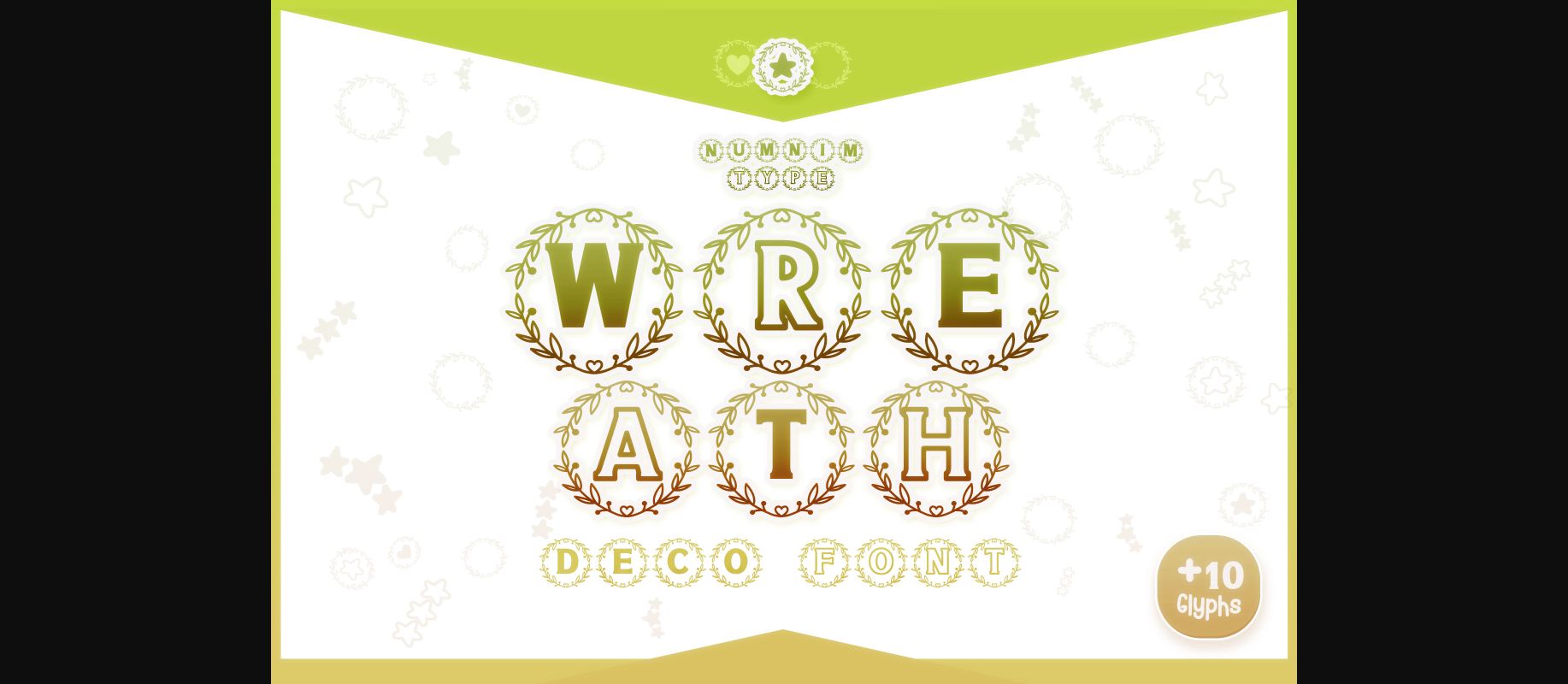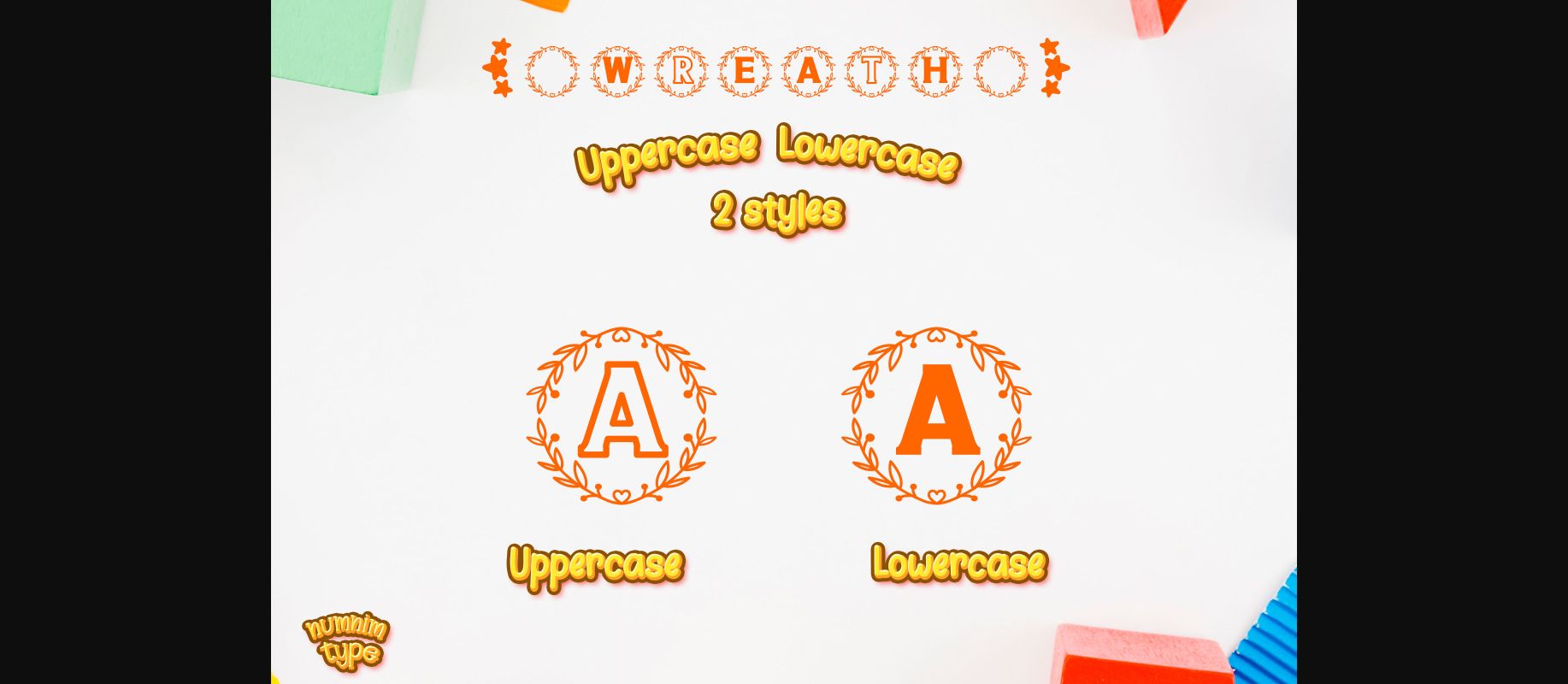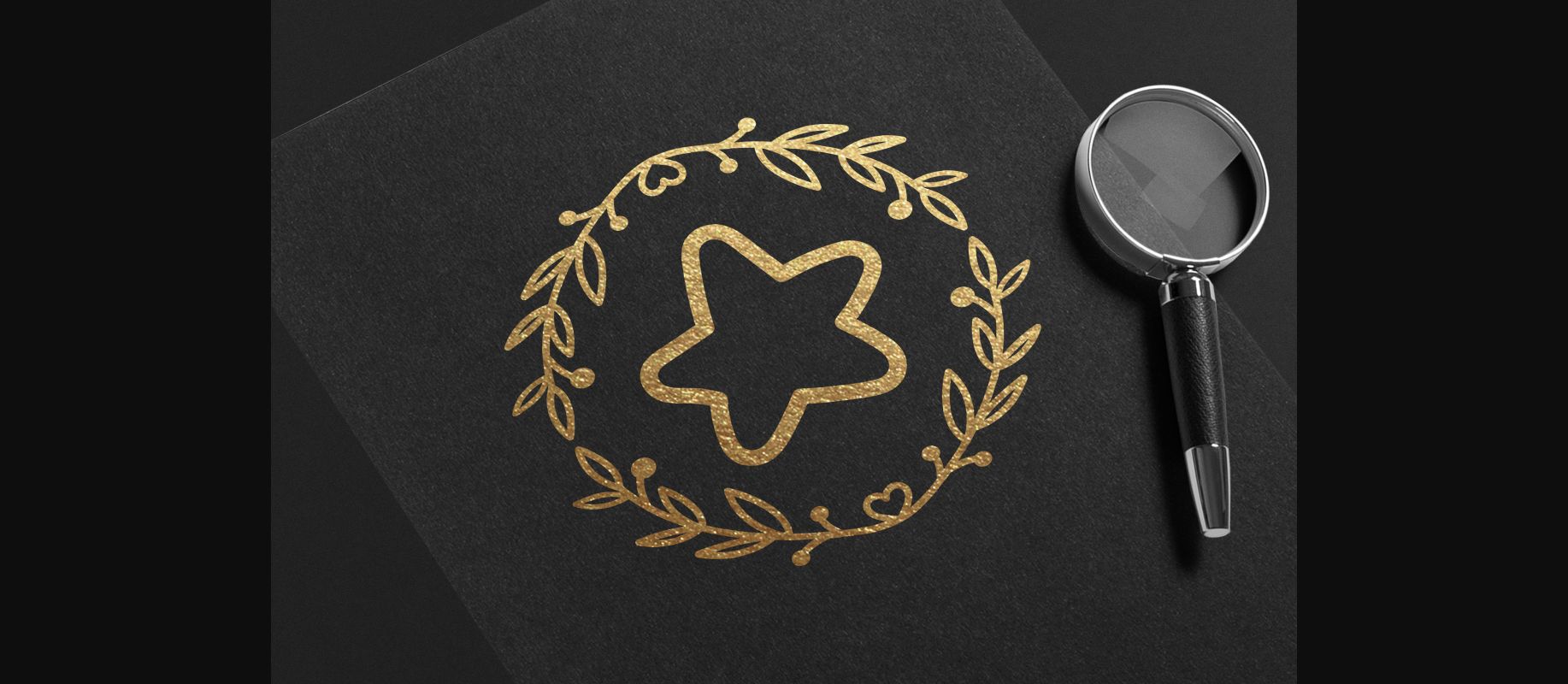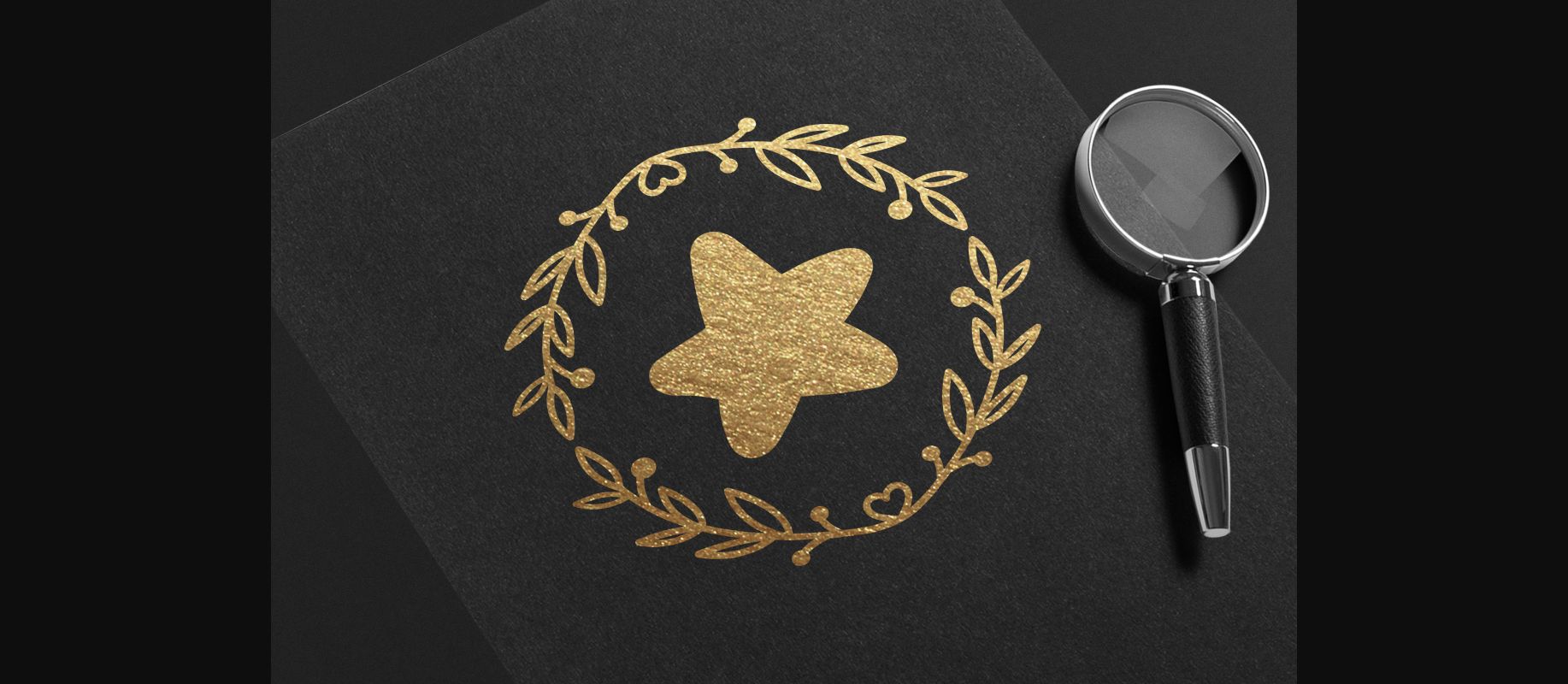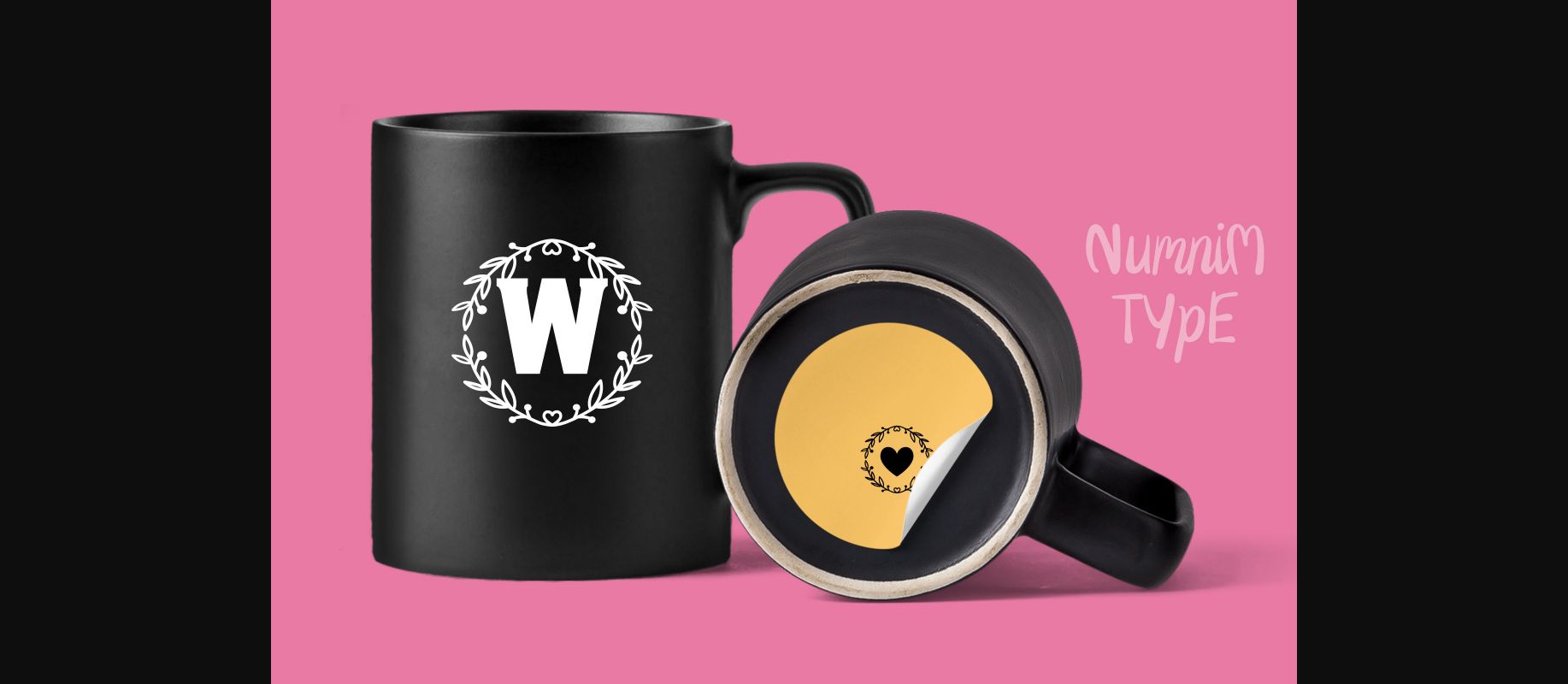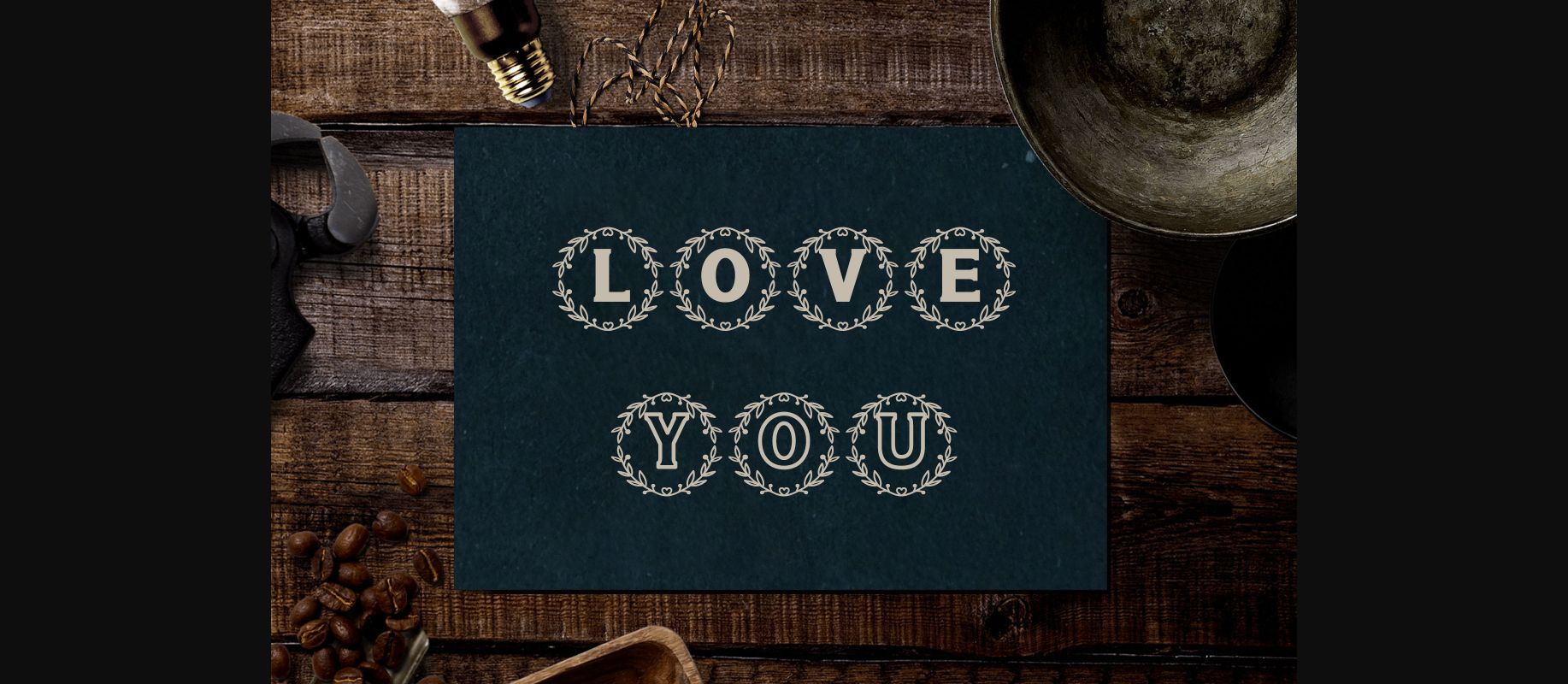
Wreath is a cool and uniquely designed decorative font. This font is suitable for Valentine’s Day and love-related projects. It is also PUA encoded which means you can access all of the glyphs and swashes with ease!